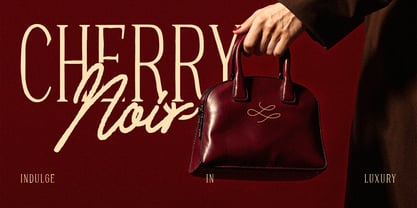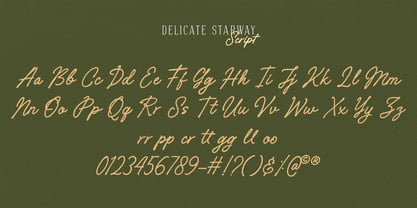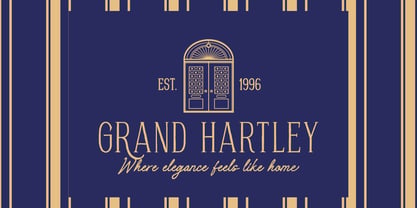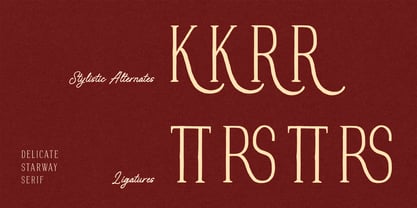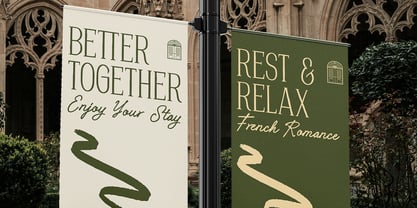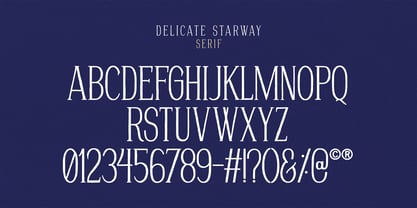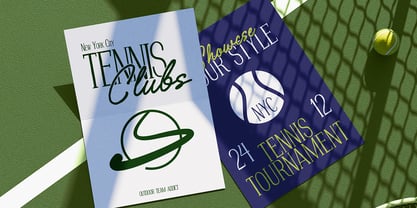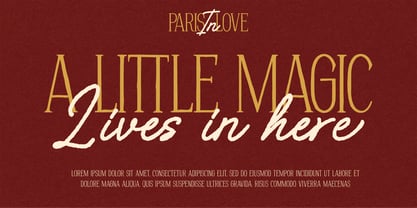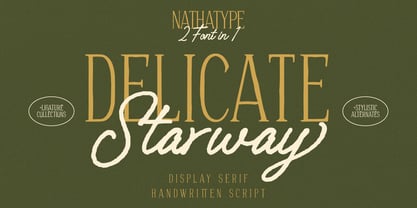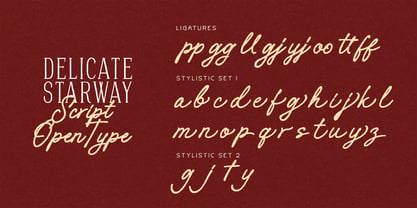
Delicate Starway
The Delicate Starway Font Family was designed by Donis Miftahudin and published by Nathatype. Delicate Starway contains 2 styles and family package options. More about this family
Delicate Starway is a beautifully crafted font duo that blends modern minimalism with natural handwritten charm. Designed for creators who want the perfect balance between structure and personality, this versatile typeface combination features a thin, uppercase display sans font paired with a soft, expressive handwritten script. Together, they create a harmonious visual contrast that feels both refined and effortlessly personal. In addition, enjoy the features here. Features: Alternates Ligatures Stylistic Sets Multilingual Supports PUA Encoded Numerals and Punctuations Delicate Starway fits in logos, quotes, branding, posters, and many more designs. Find out more ways to use this font by taking a look at the font preview. Thanks for purchasing our fonts. Hopefully, you have a great time using our font. Feel free to contact us anytime for further information or when you have trouble with the font. Thanks a lot and happy designing.